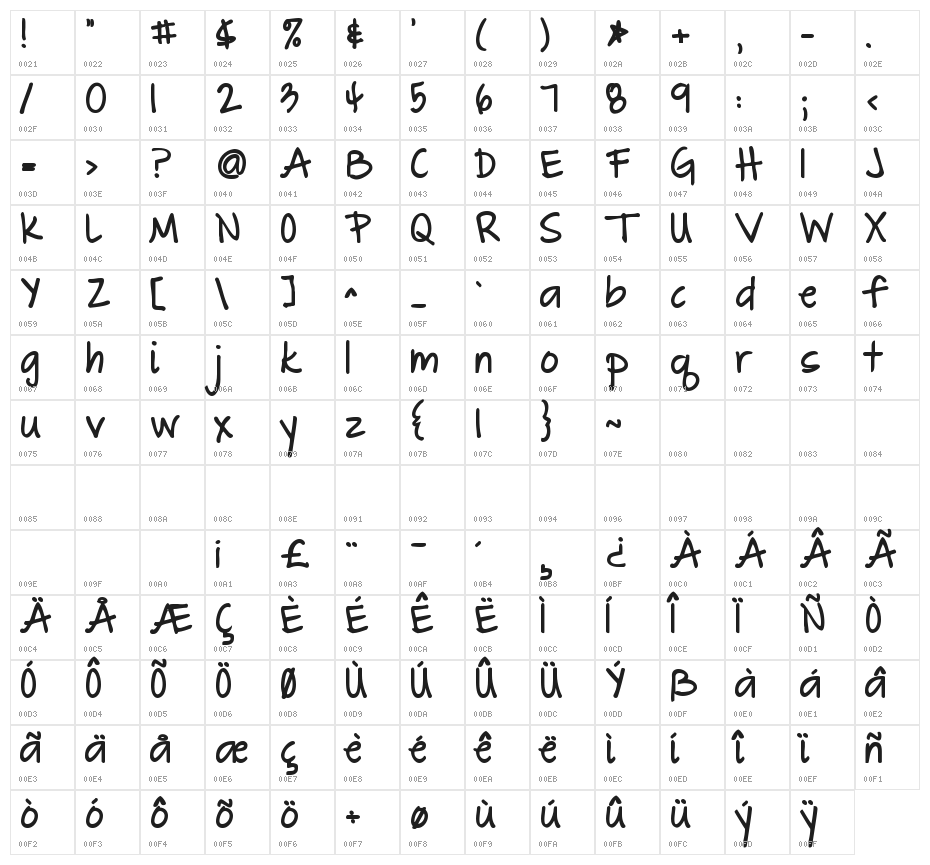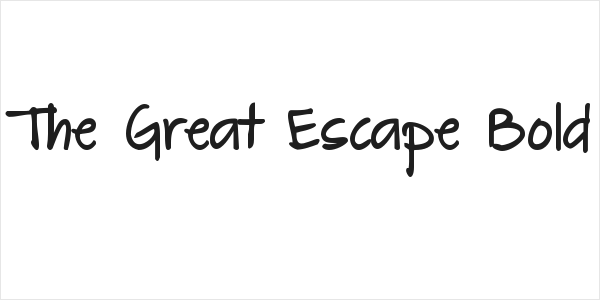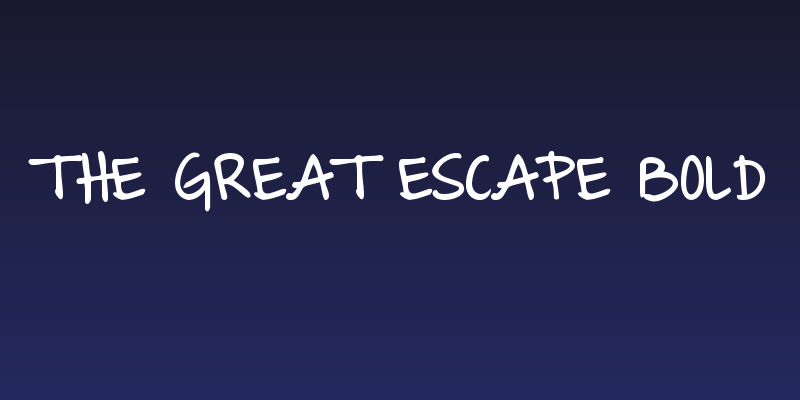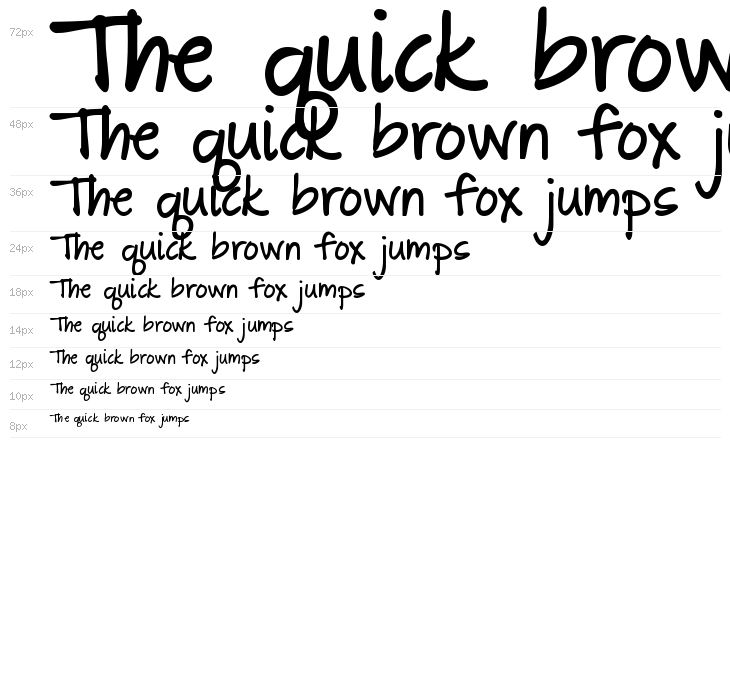
The Great Escape Bold Font
The Great Escape Bold Description
This font features a playful, handwritten style with bold, rounded strokes that give it a lively and informal appearance. The characters are slightly irregular, adding to its charm and making it feel personal and engaging. The uppercase and lowercase letters maintain a consistent style, with a slight slant that suggests movement and energy. The numerals and special characters are equally expressive, fitting seamlessly with the overall aesthetic. This font is perfect for projects that require a touch of whimsy and creativity, such as children's books, greeting cards, or playful branding.
| Proposed Projects | Ideal for children's books, greeting cards, playful branding, and creative projects. |